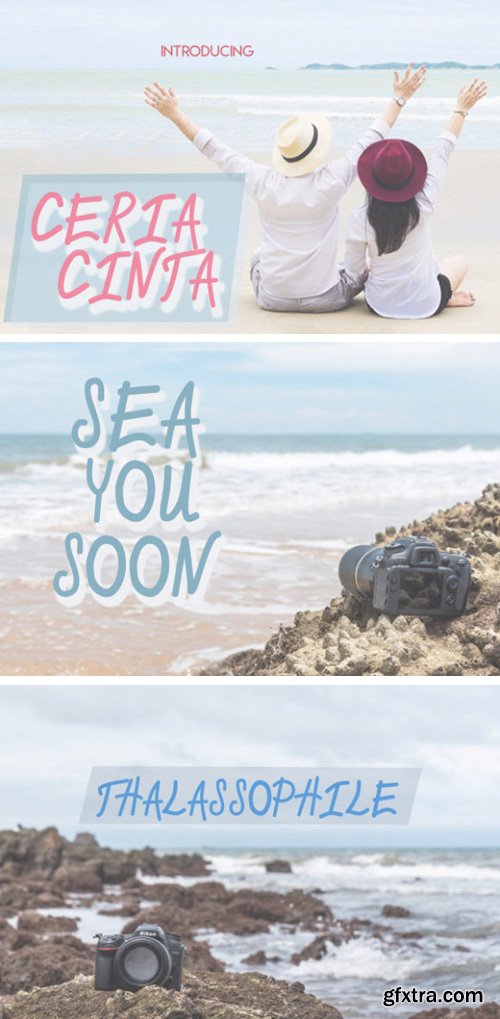
Ceria Cinta Font
The Ceria Cinta is an unique hand-lettered font. It has an amazing readability and is perfect for adding a modern look to your designs.